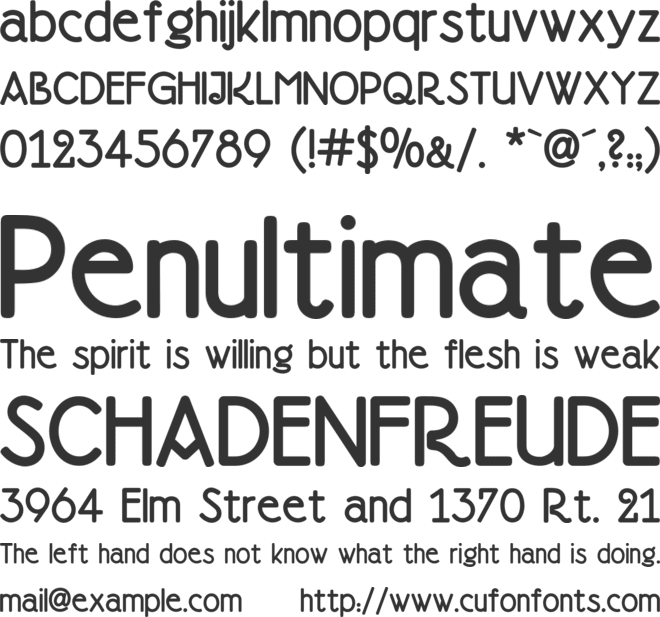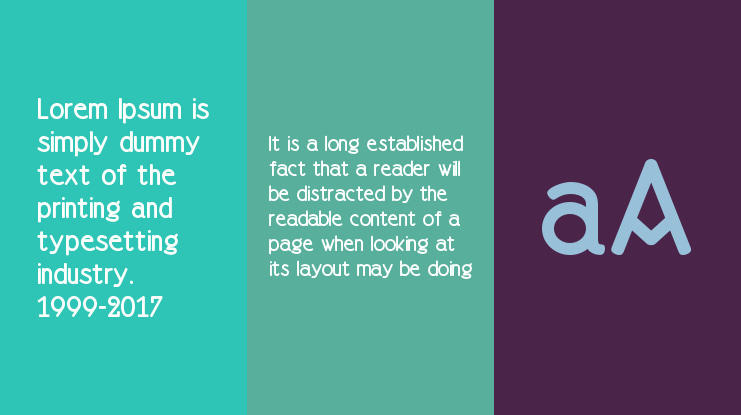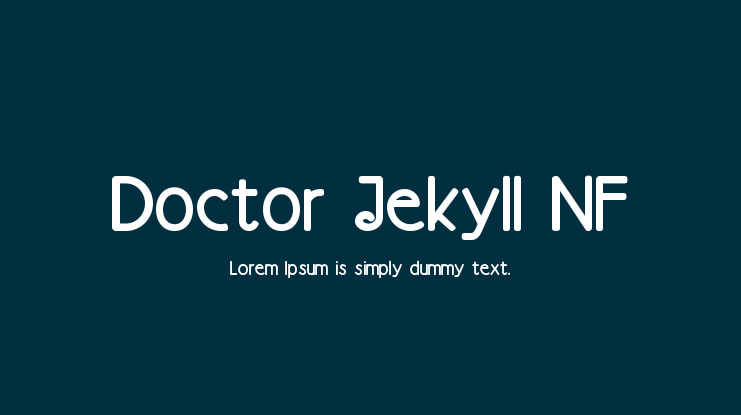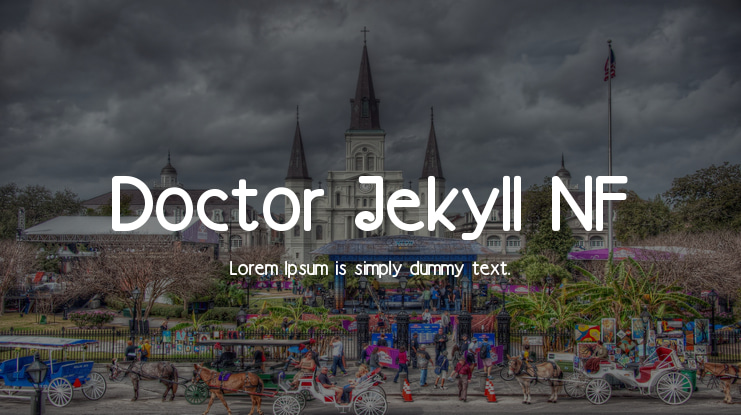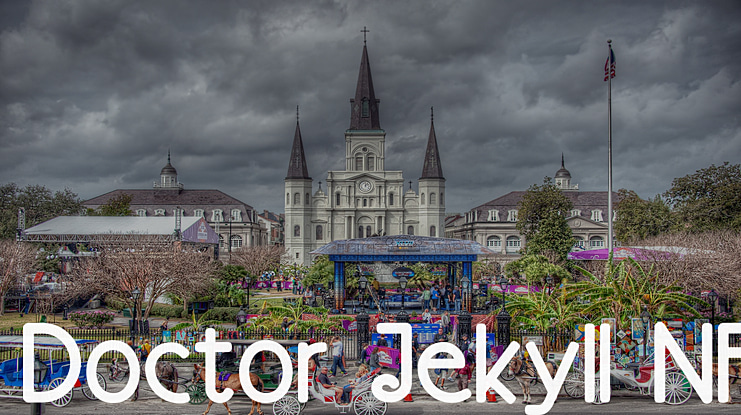
Talk about the United Nations: several of the uppercase letters are based on letterforms I saw in the National Museum of American Art on a Swedish poster for the film Dr. Jekyll and Mr. Hyde (hence the name). The balance of the alphabet is based on German âBlockâ lettering designed by Louis Oppenheim for the H. Berthold A.G. foundry in the 1920âs. The clean, simple lines make this font suitable for text composition as well as headlines.